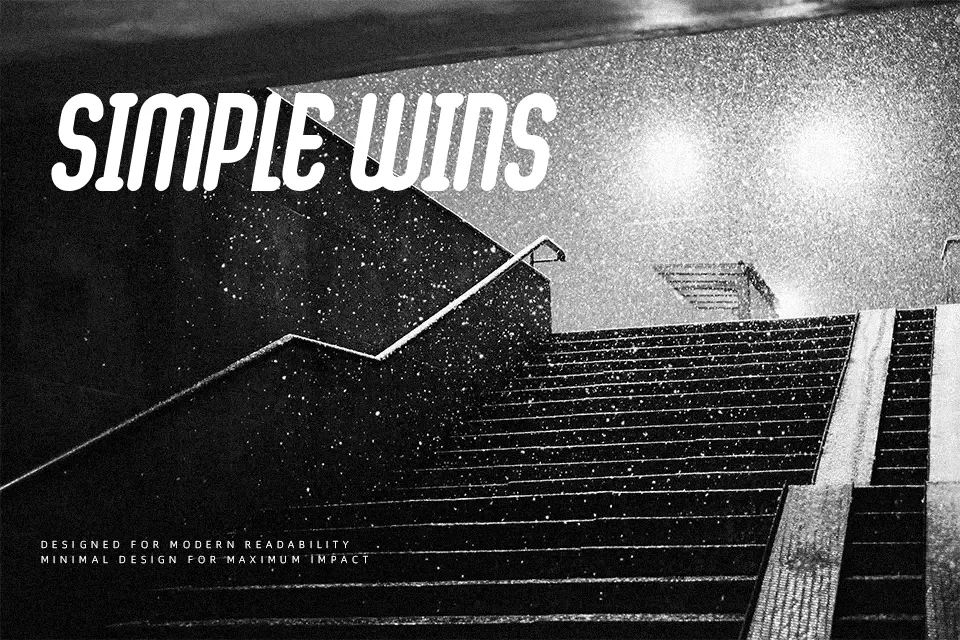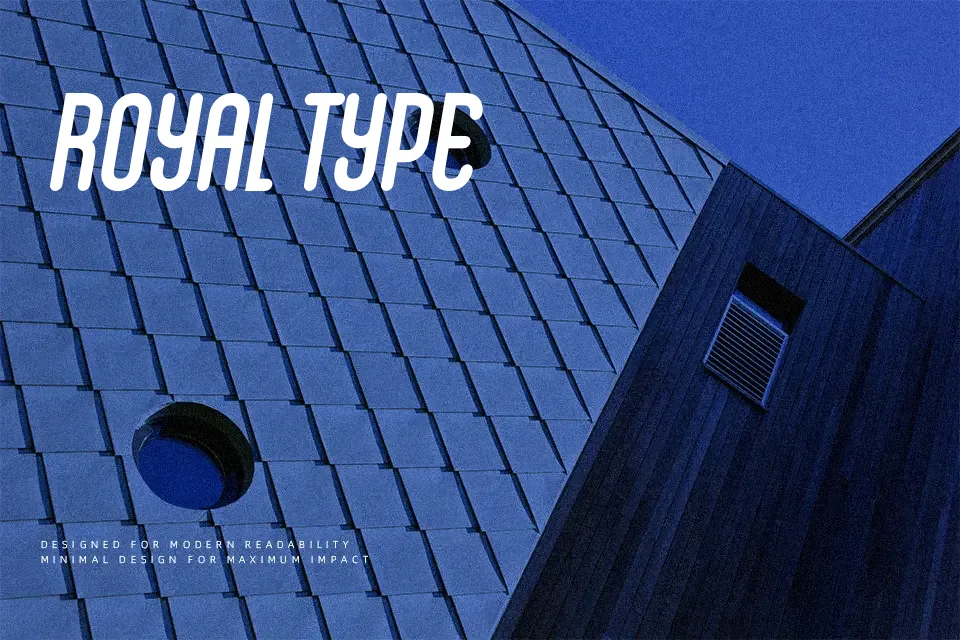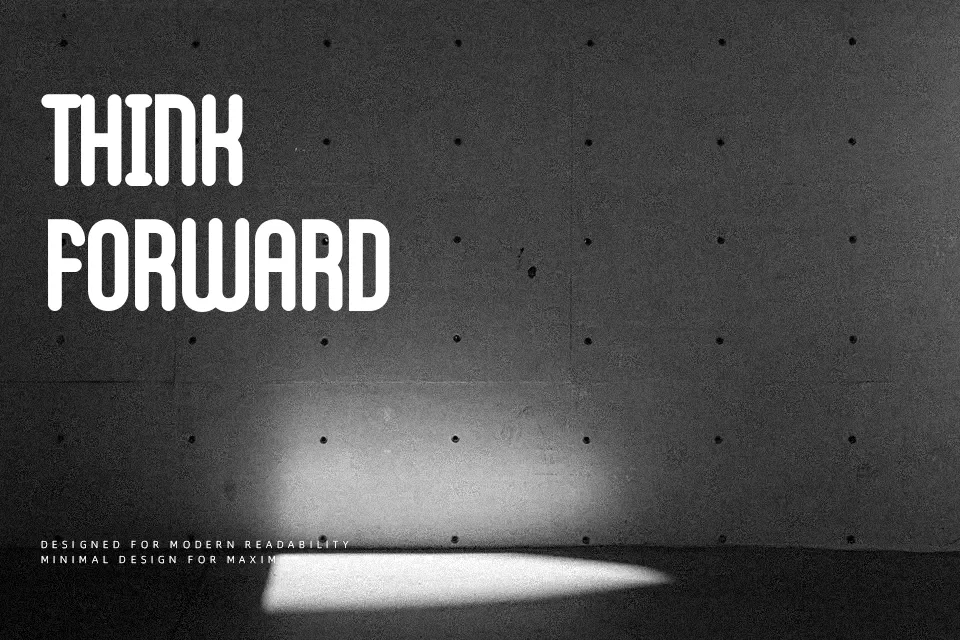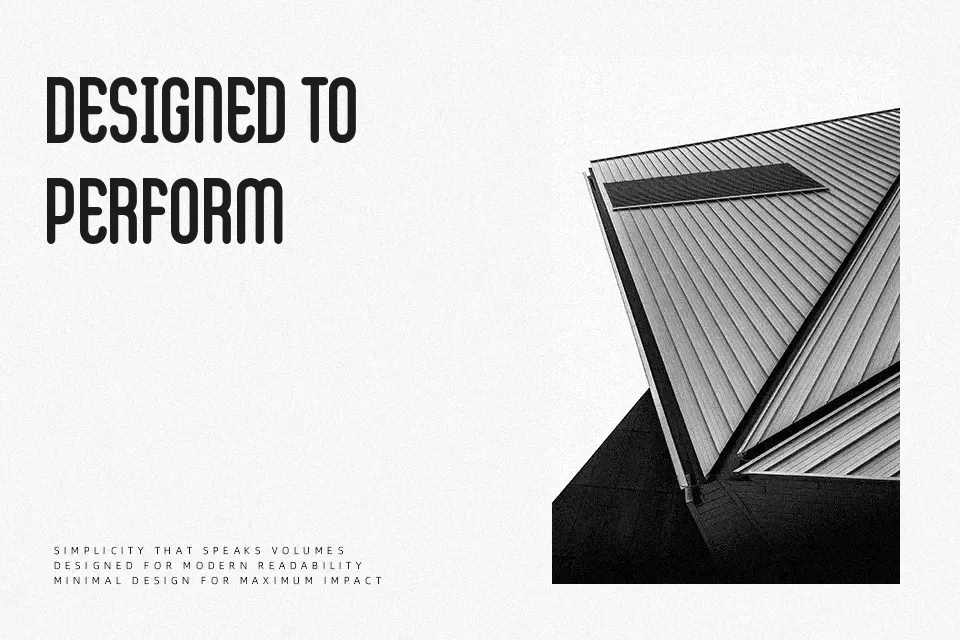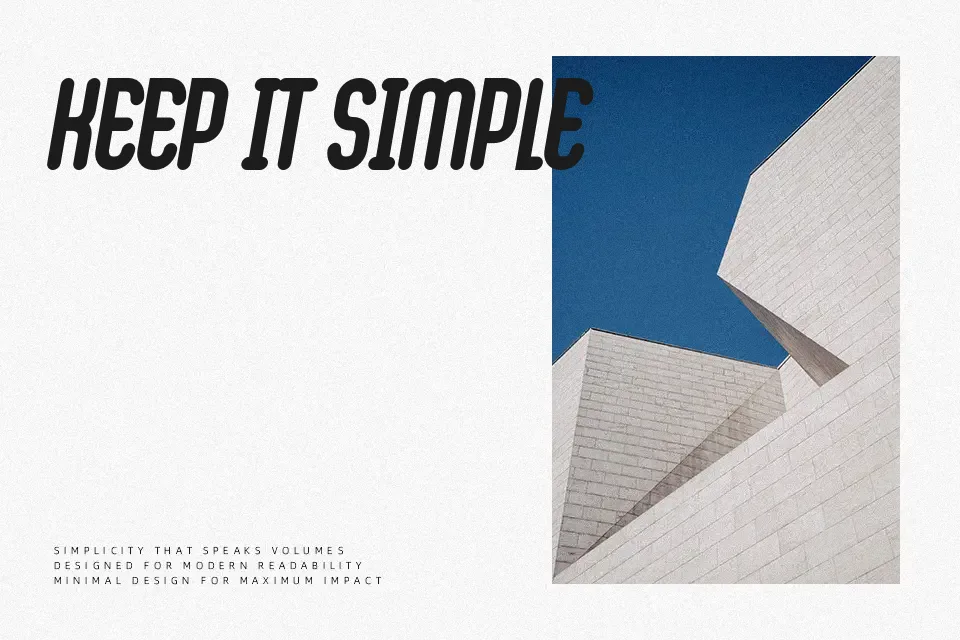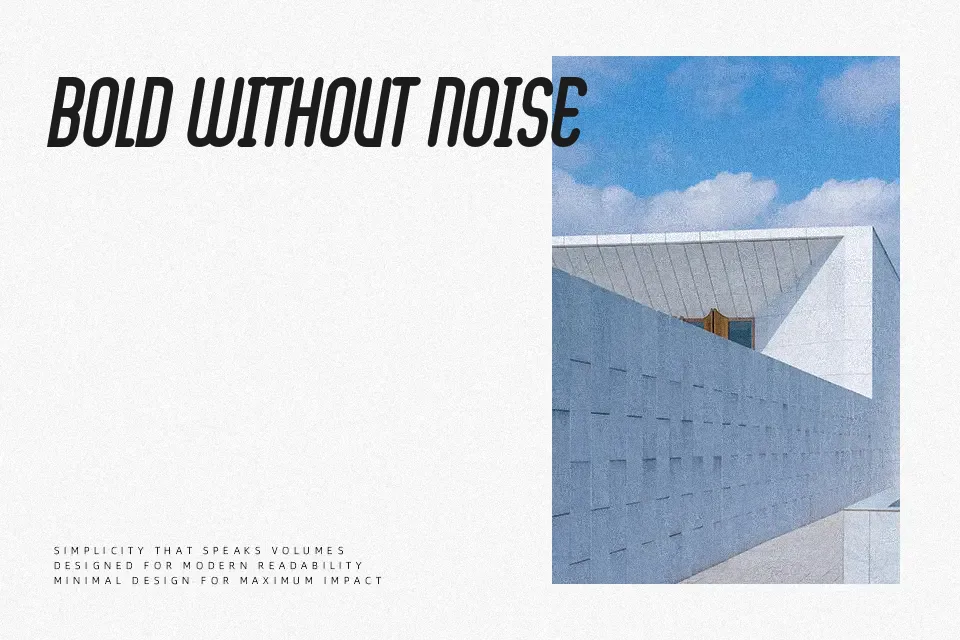
Cactron Font
Cactron is a sans serif typeface with soft, rounded corners, steady stroke weight, and slightly condensed proportions that give text a dense, glowing feel reminiscent of neon signage. Letters sit fairly tight, which helps larger titles feel cohesive while still staying readable at medium sizes. The overall character is modern and a bit futuristic, leaning decorative rather than workhorse. It shines on music flyers, nightlife branding, tech-flavored posters, and short wordmarks, especially against dark backgrounds. By contrast, long paragraphs, small UI labels, or highly formal corporate documents will feel strained or out of place. If you like clean geometric sans fonts but want something more atmospheric and expressive, this family sits in that in‑between space.
nightlife or music event posters and flyers
short headlines on dark, neon-inspired layouts
techy or futuristic branding wordmarks
social media graphics for clubs or festivals
long-form body text in print or web articles
small UI labels or dense data-heavy interfaces
formal corporate documents or editorial layouts needing neutrality
minimalist branding that avoids decorative flair
Perfect for branding, headline, and music, with a bold and display style.